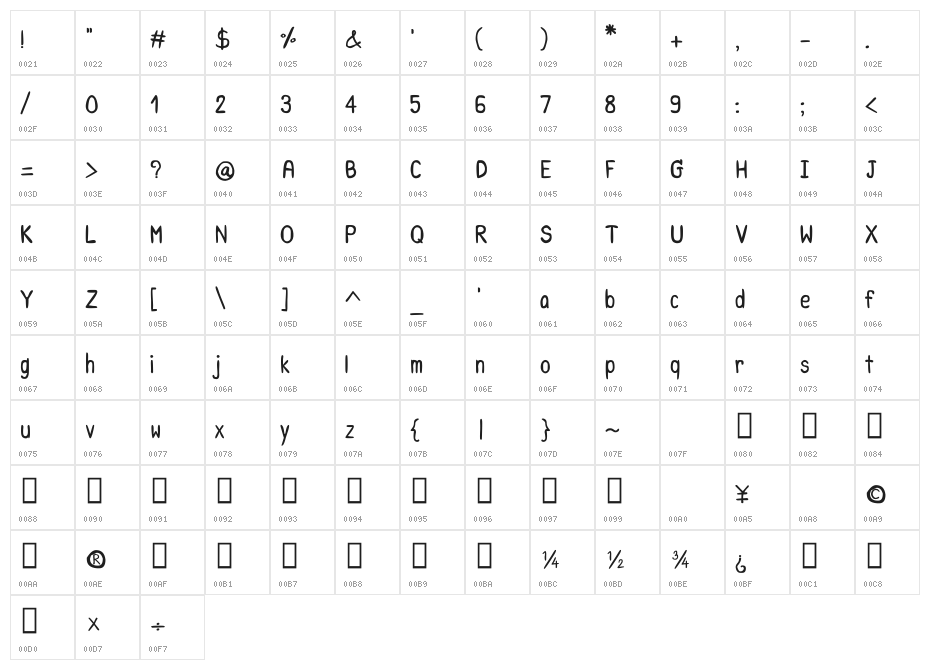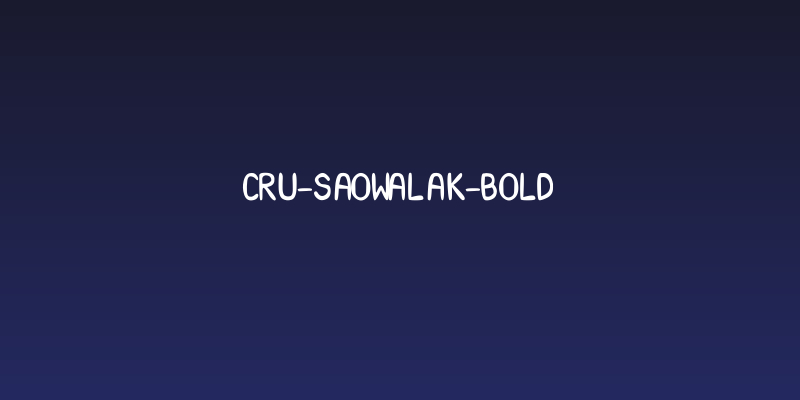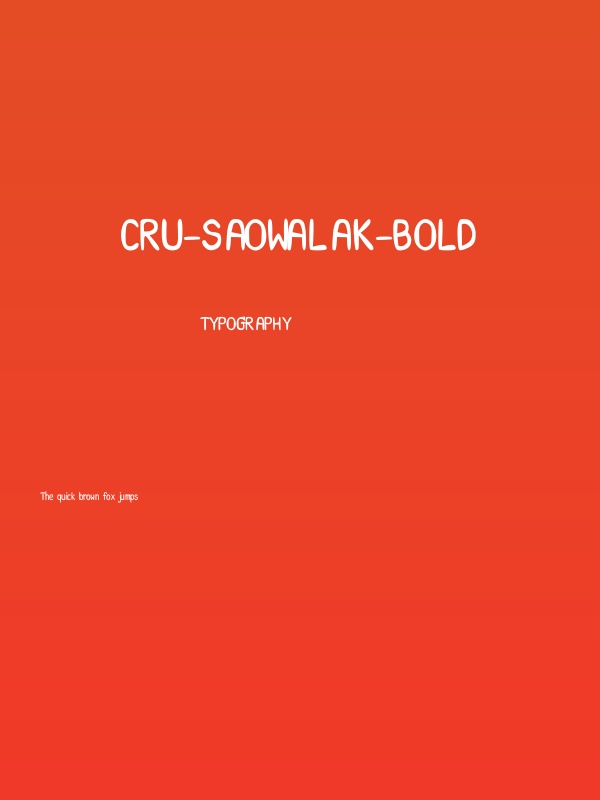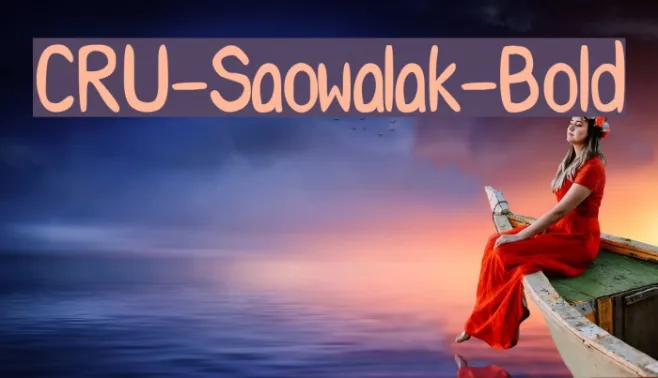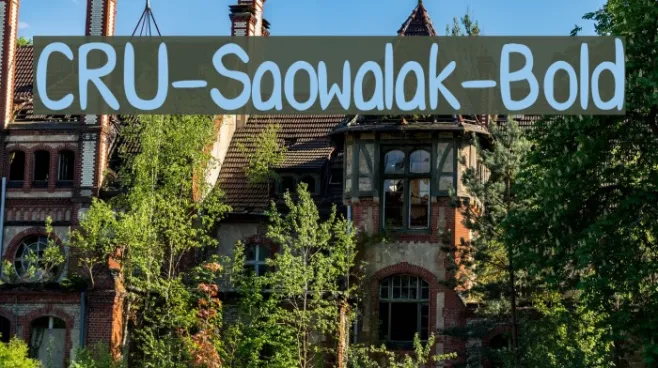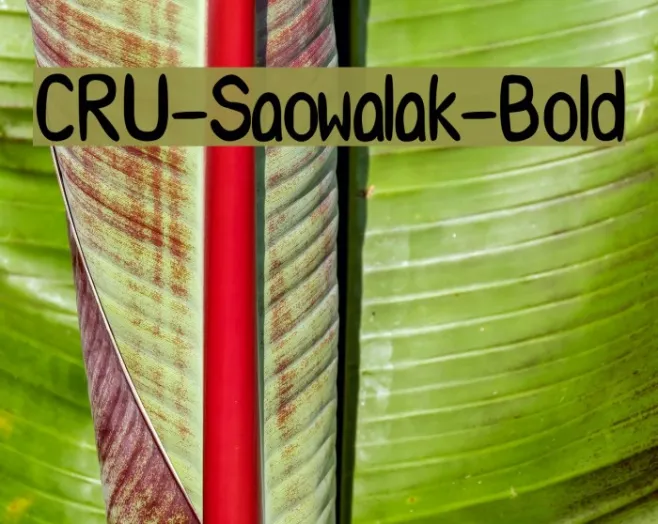
CRU-Saowalak-Bold Font
CRU-Saowalak-Bold Description
This font features a playful and rounded style, characterized by its bold and slightly irregular strokes. The letters have a hand-drawn appearance, giving them a friendly and approachable vibe. The uppercase and lowercase letters maintain a consistent flow, with rounded edges and a slight tilt that adds to the casual aesthetic. Numbers and special characters follow the same design principles, ensuring uniformity across all glyphs. This font is well-suited for projects that require a touch of whimsy and creativity, making it ideal for children's books, playful branding, and informal communication.
| Proposed Projects | Children's books, playful branding, informal communication, creative projects. |